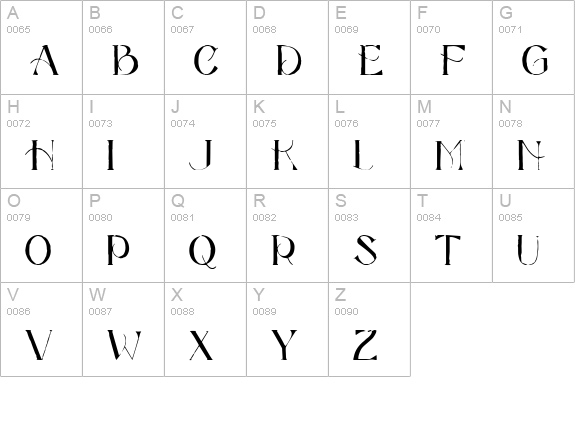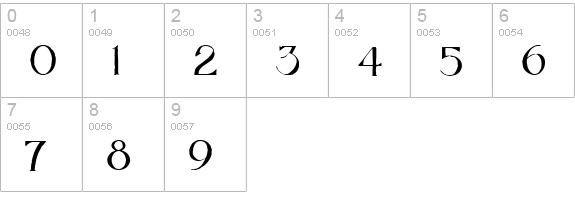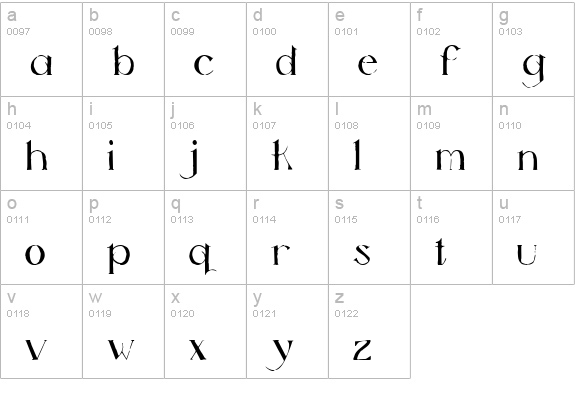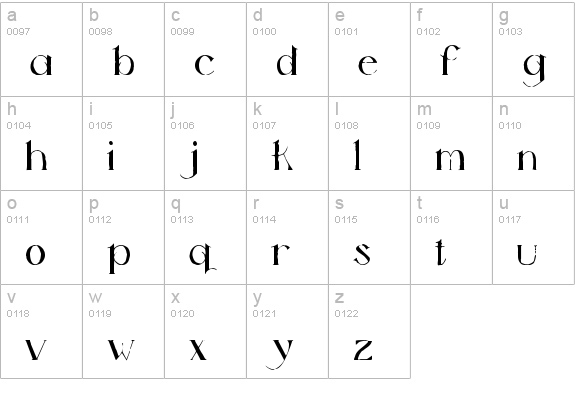
CK Vogue Font Details
Introducing CK Vogue, a sophisticated and elegant font that exudes luxury and style. With its sleek lines and modern aesthetic, CK Vogue is perfect for creating stunning designs that demand attention. Whether you're designing a fashion magazine, luxury branding, or elegant invitations, this font will make your projects stand out. What's even better is that CK Vogue is available for free download at FontsMarket.com. Yes, you read that right - you can elevate your designs with this exquisite font without spending a dime. Don't miss out on this opportunity to add a touch of glamour to your projects with CK Vogue. Download it now and start creating stunning visuals that will leave a lasting impression.